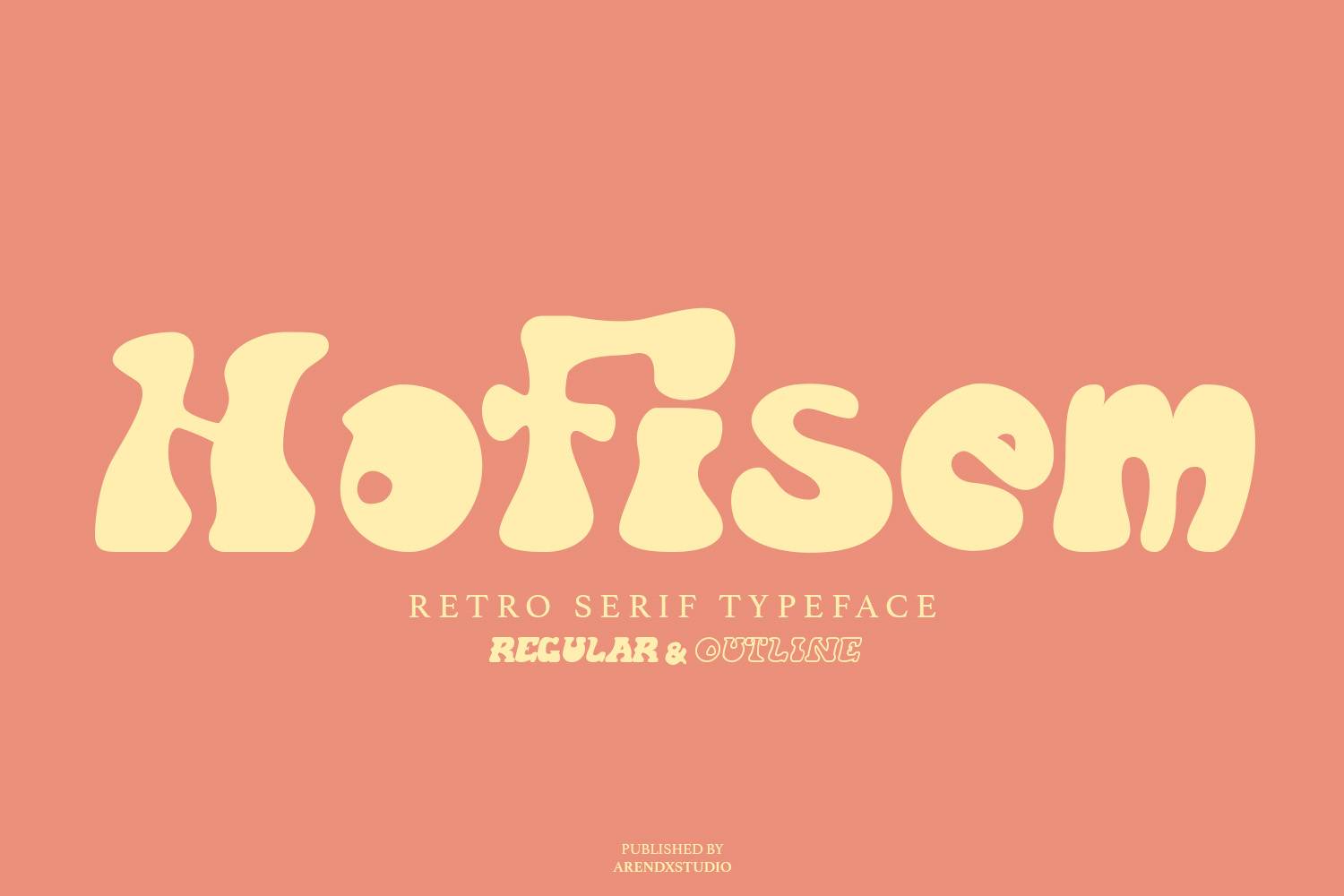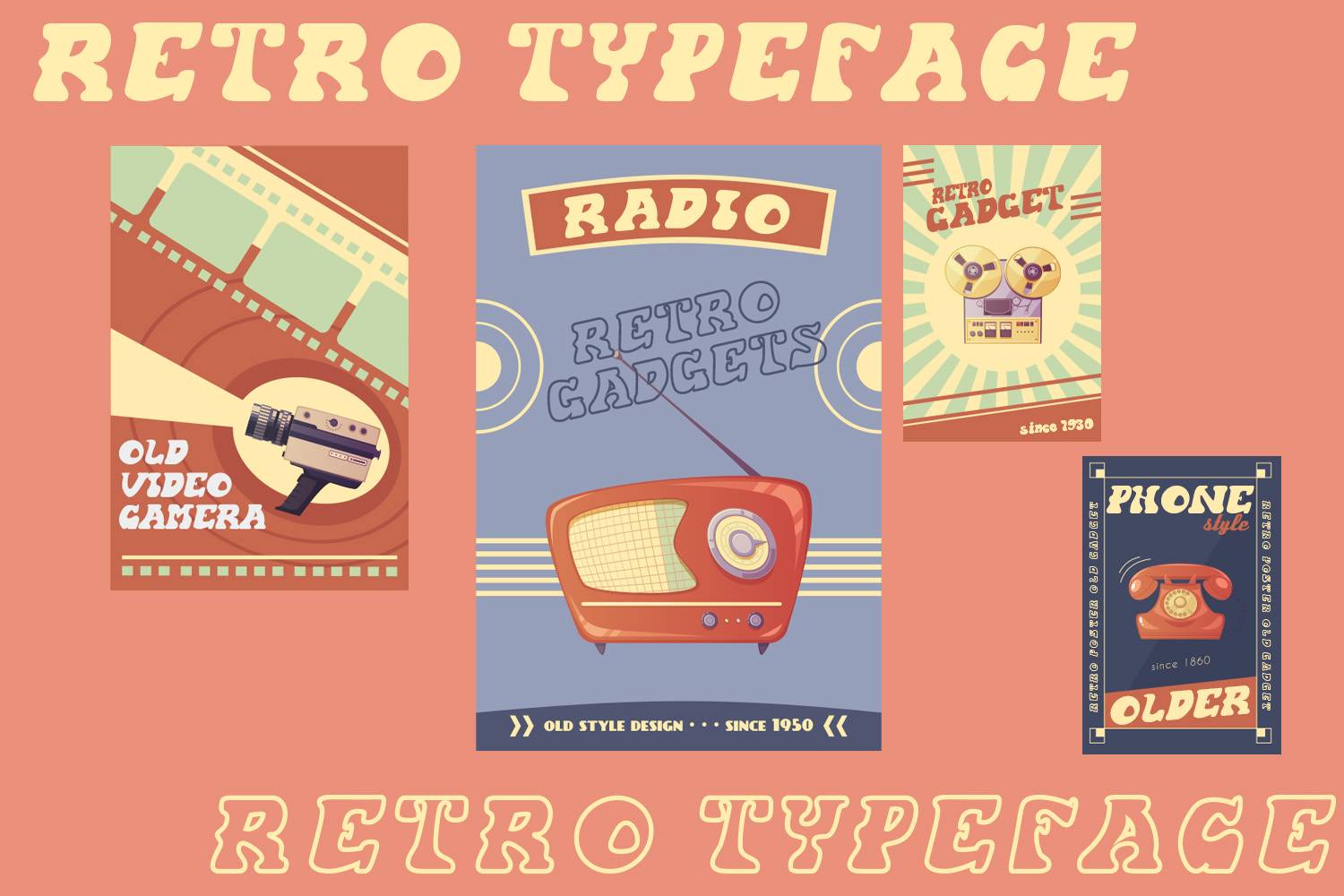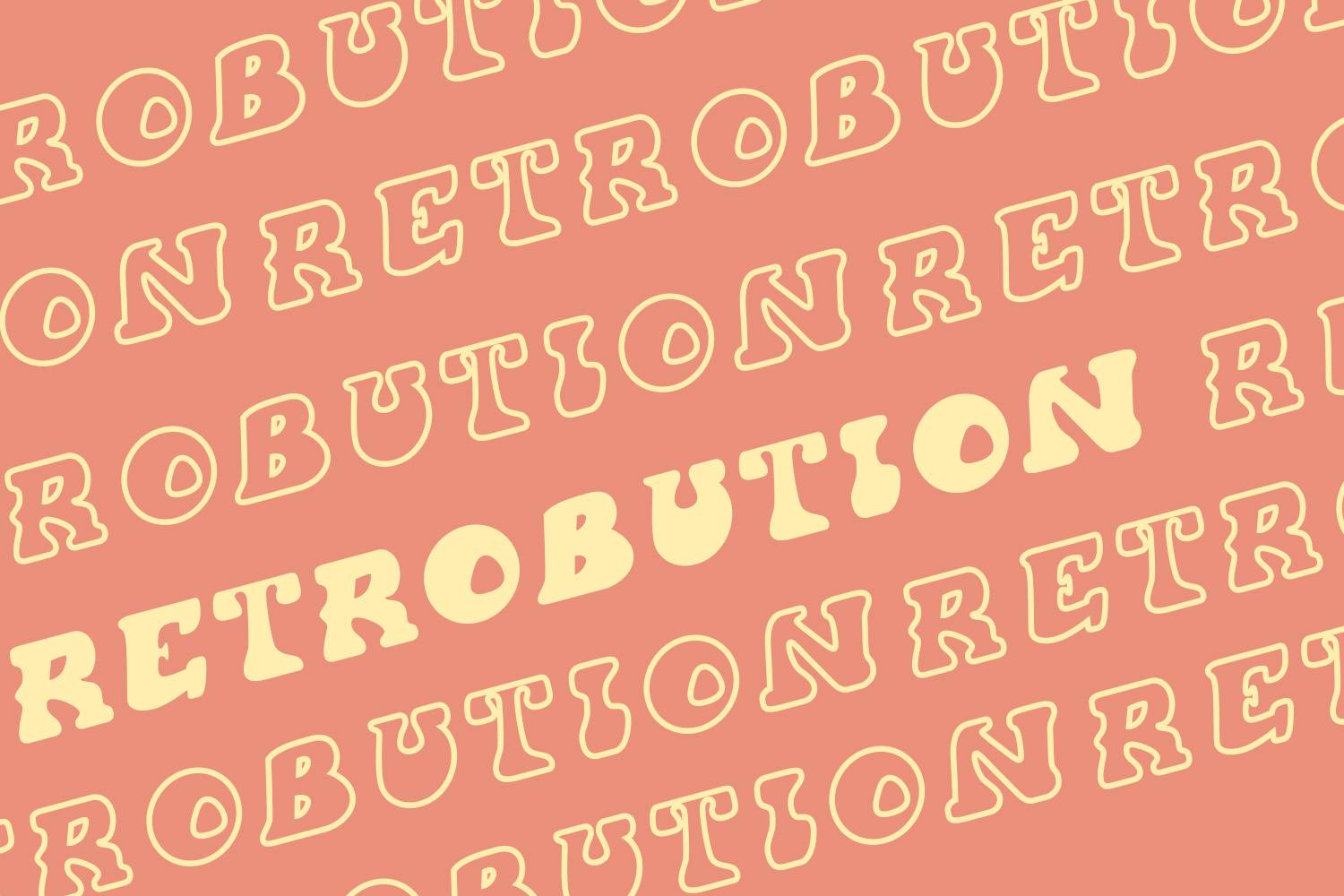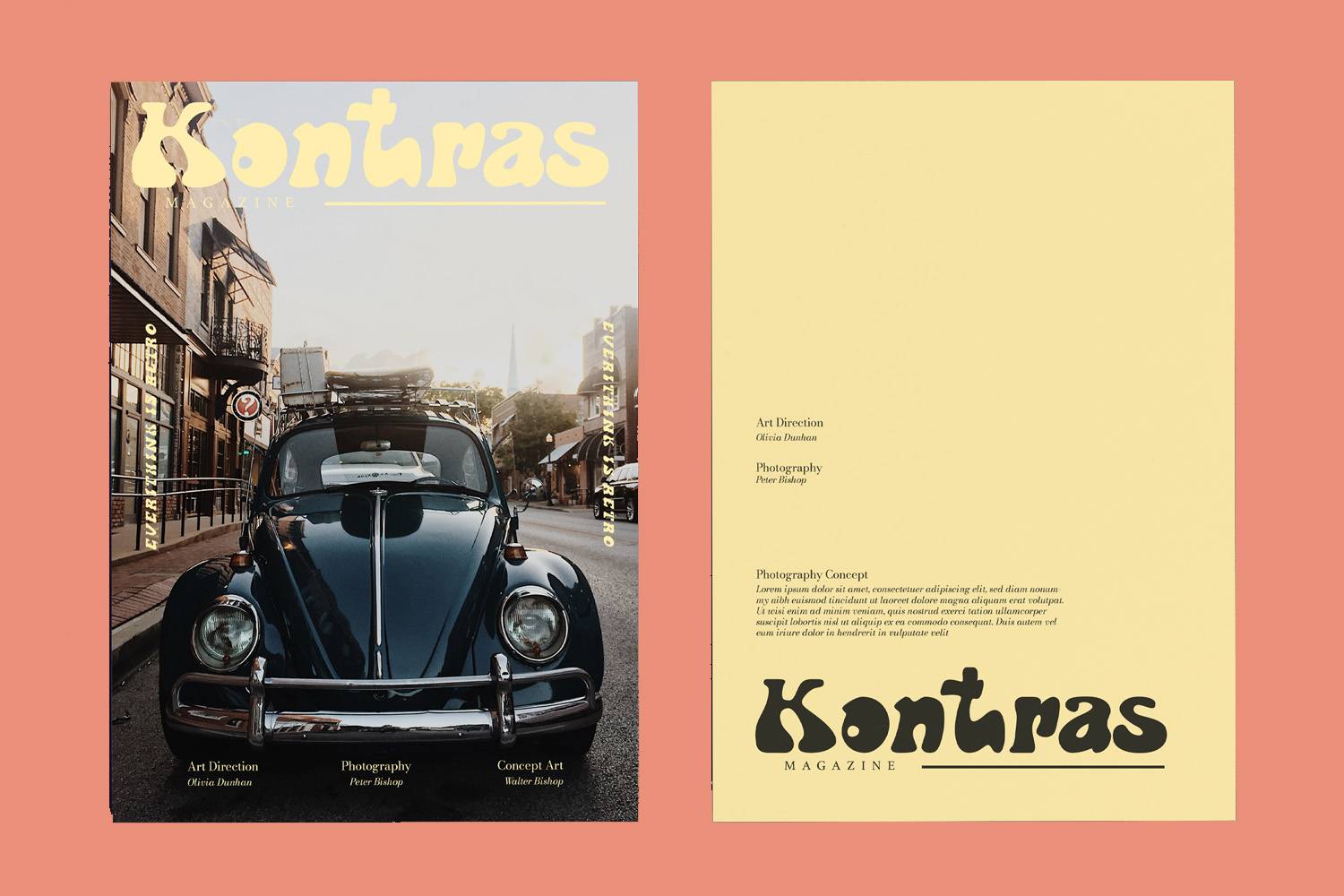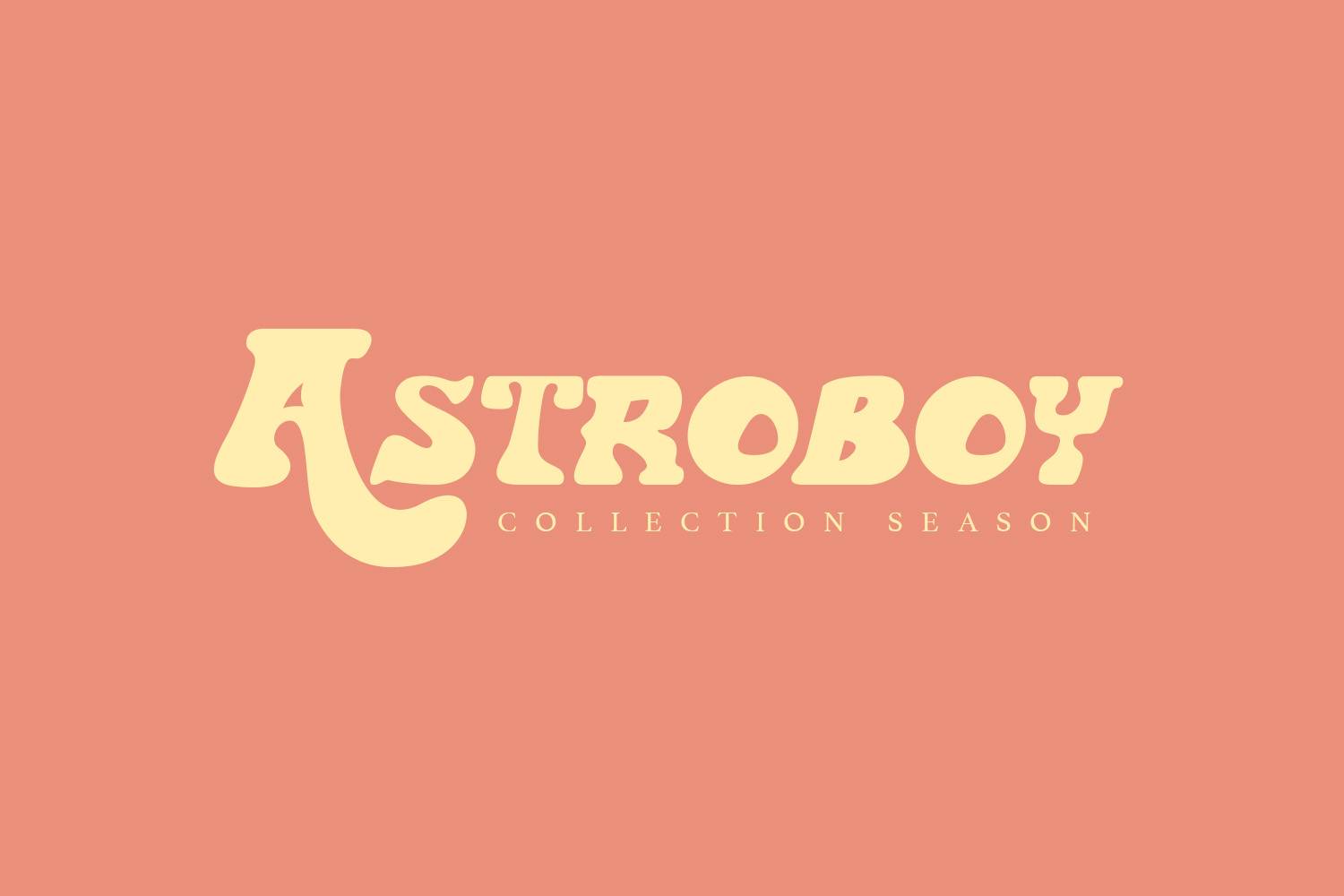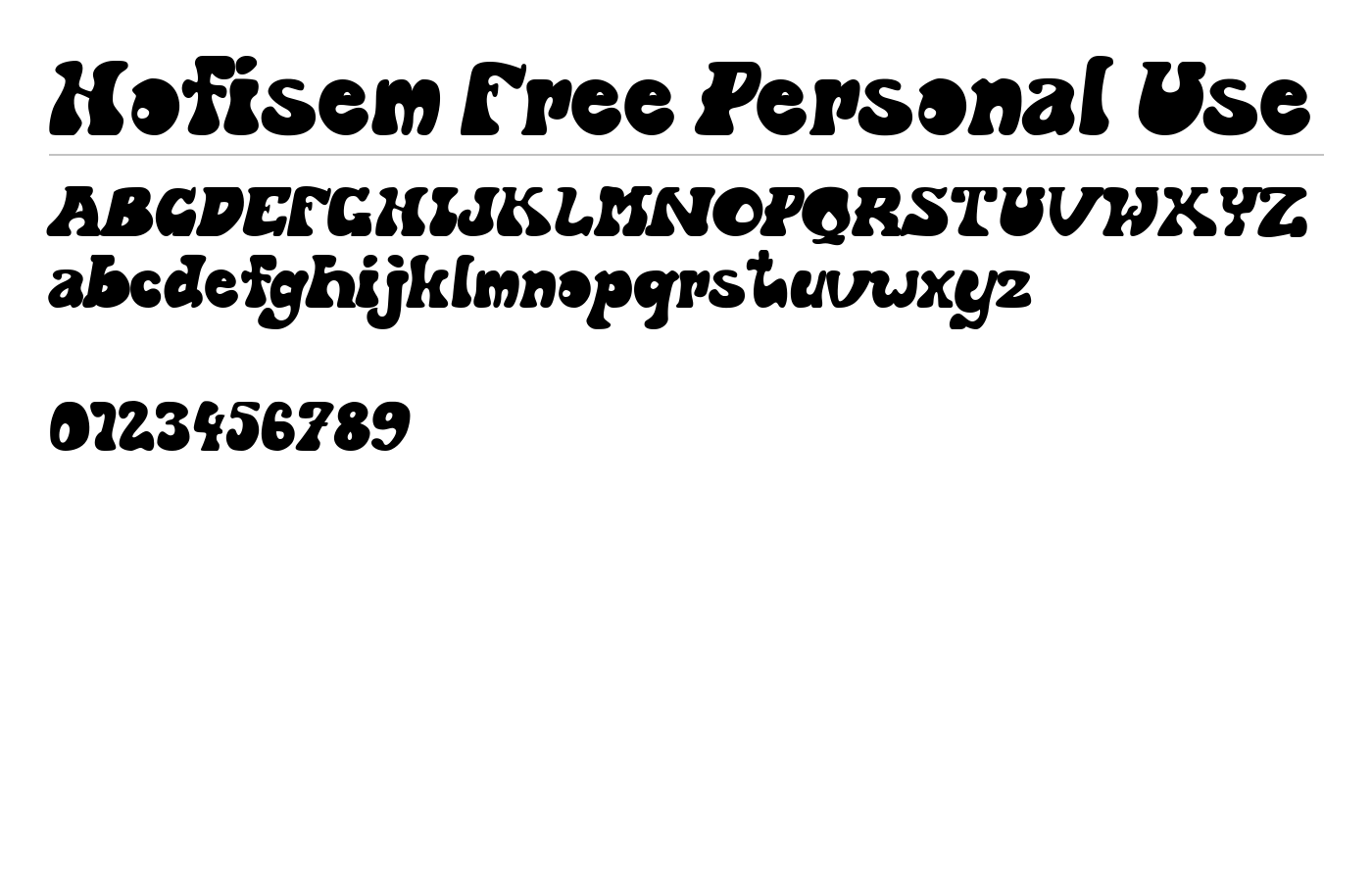
Hofisem is a bold, playful serif font with a retro, almost psychedelic vibe, featuring thick, rounded strokes and whimsical letterforms that bring a cheerful and informal feel. Its chunky weight and unique character shapes make it perfect for eye-catching headlines, logos, and creative projects that want to convey fun and personality. Ideal for posters, branding, and display use, Hofisem stands out with its distinctive style that captures attention and adds a lively touch.
Hofisem Font
About Hofisem Font
| Font family | Hofisem Font |
| Release date | 2020-08-04 |
| Designer | arendxstudio |